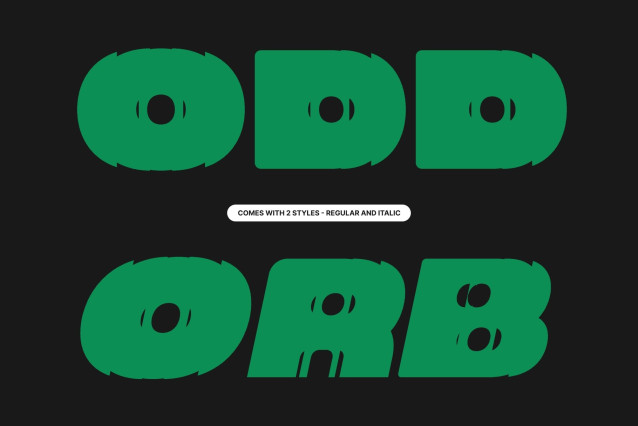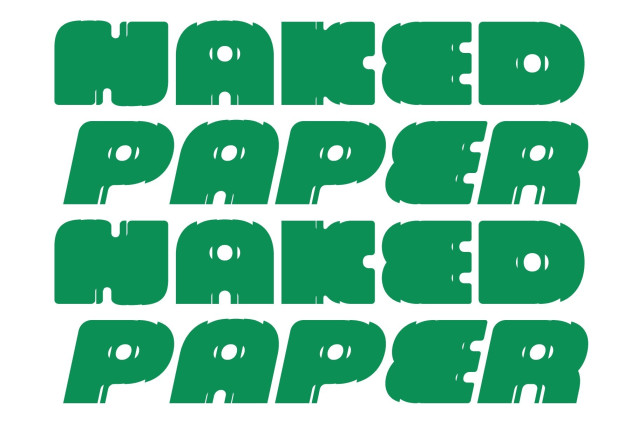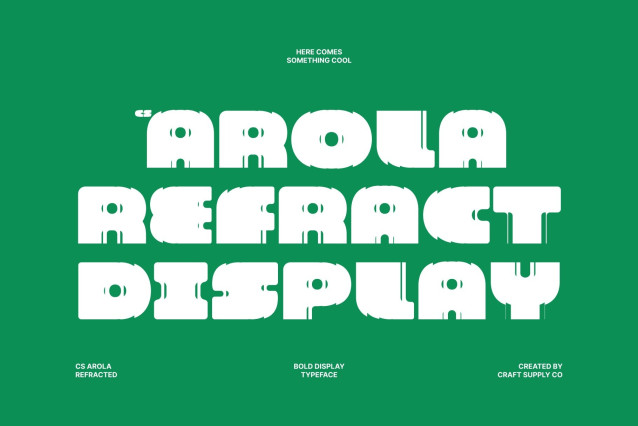
CS Arola Refracted Font
CS Arola Refracted – Bold Display Font: Soft Strength with Futuristic Funk and Light Distortion
Chunky Letterforms with Confident Visual Energy
This is a bold display typeface designed to combine strong visual presence with a soft, approachable personality. Built from chunky, well-balanced letterforms, it delivers immediate impact while maintaining a friendly and expressive tone. Every character feels intentional and weighty, ensuring that messages stand out clearly.
Refracted Styling with Funky Futuristic Motion
What defines this font is its distinctive refracted effect, where each glyph is enhanced with geometric slicing and light-like distortions. These subtle breaks create a sense of movement and digital vibration, adding a futuristic twist to its playful structure. The result is a bold typeface that feels energetic, experimental, and visually dynamic without losing its core readability.